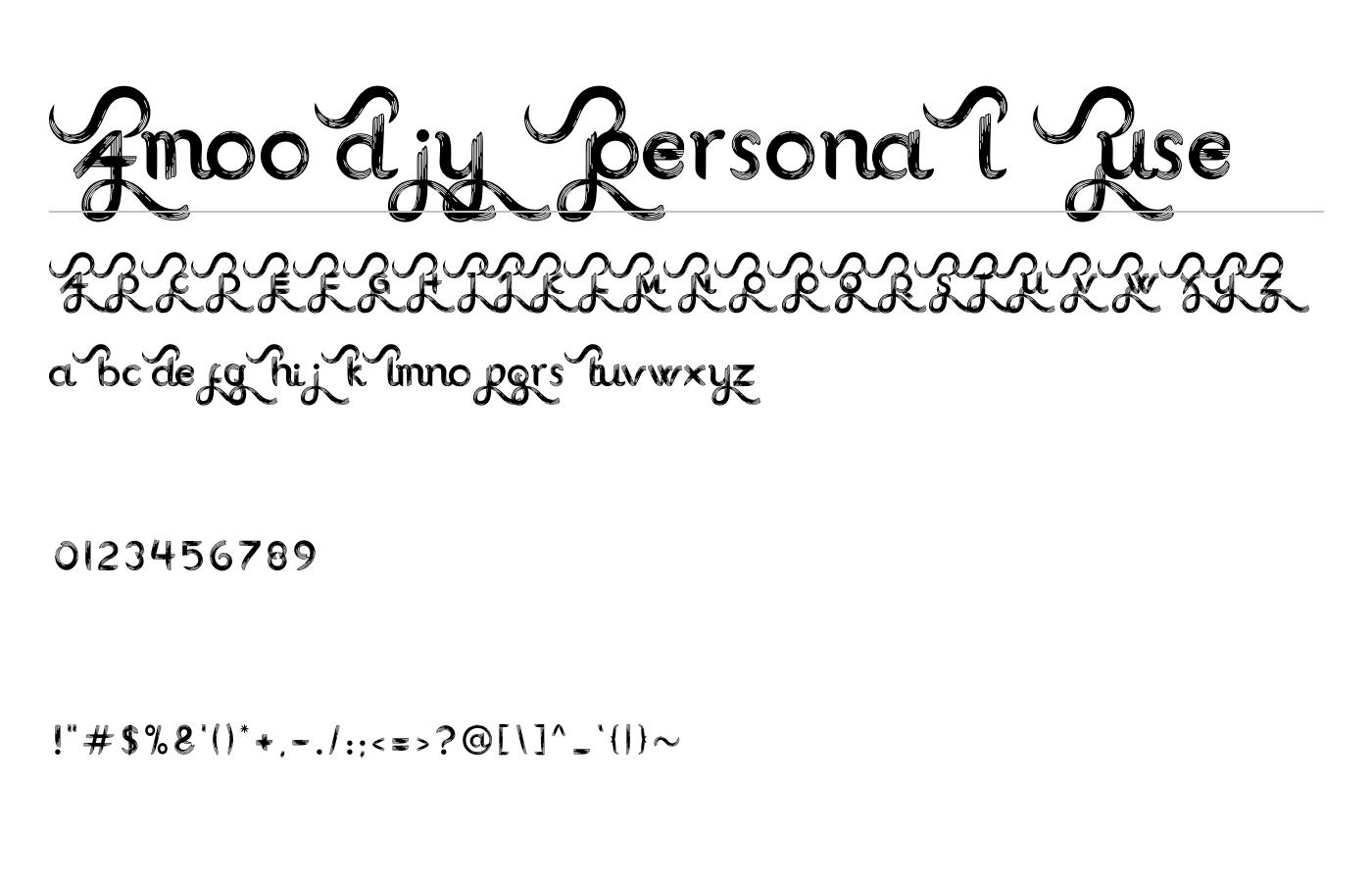
Amoodjy Personal Use Font is a decorative serif typeface with a whimsical, hand-drawn style that features elegant, swirling flourishes and a medium contrast between thick and thin strokes. Its unique letterforms, combining playful curves with a slightly vintage feel, make it ideal for eye-catching headlines, creative logos, and artistic packaging where a bold, expressive personality is desired. This font works best in display settings where its intricate details can shine, adding charm and individuality to fashion, branding, and editorial projects.
Amoodjy Personal Use Font
About Amoodjy Personal Use Font